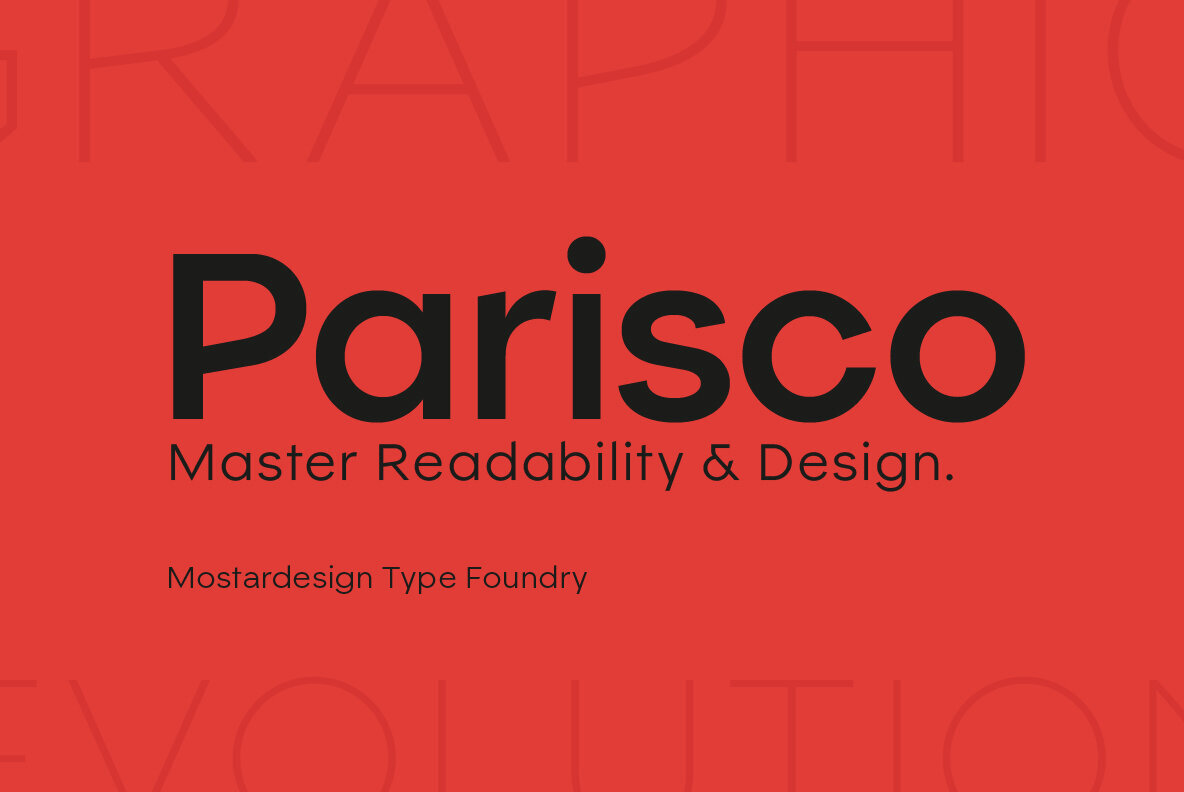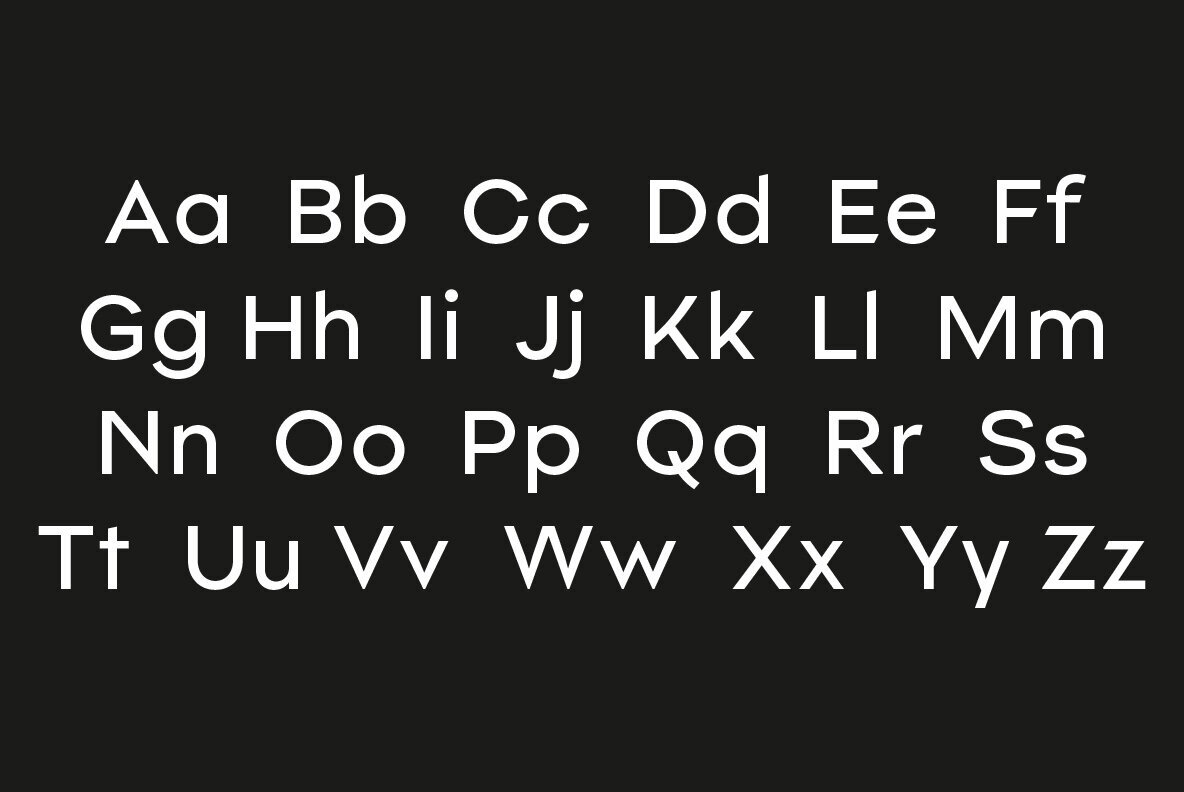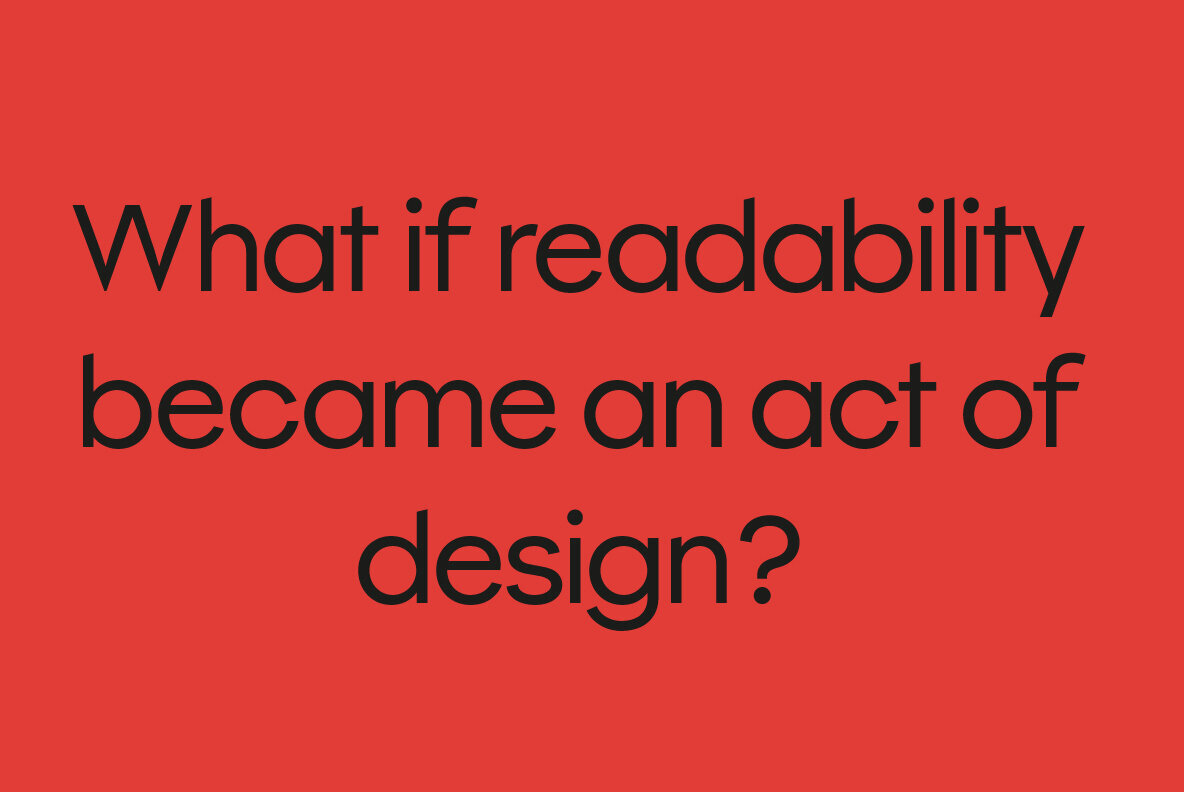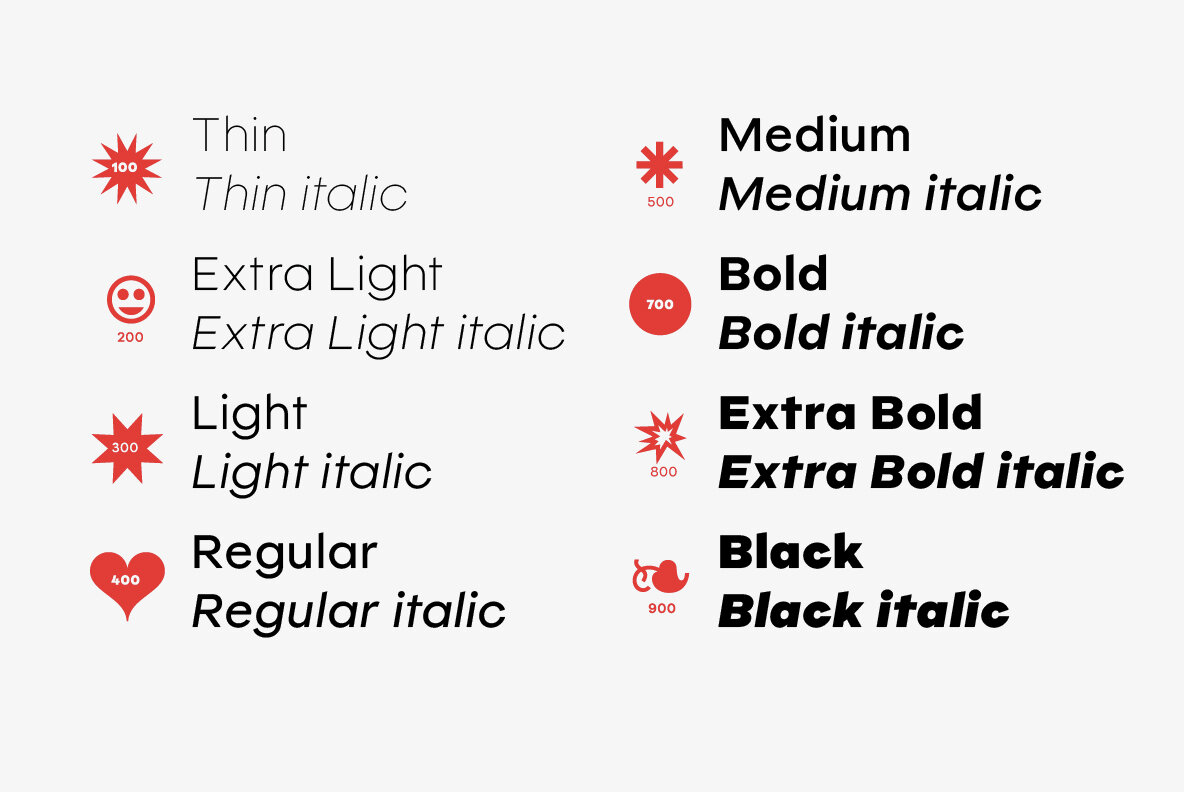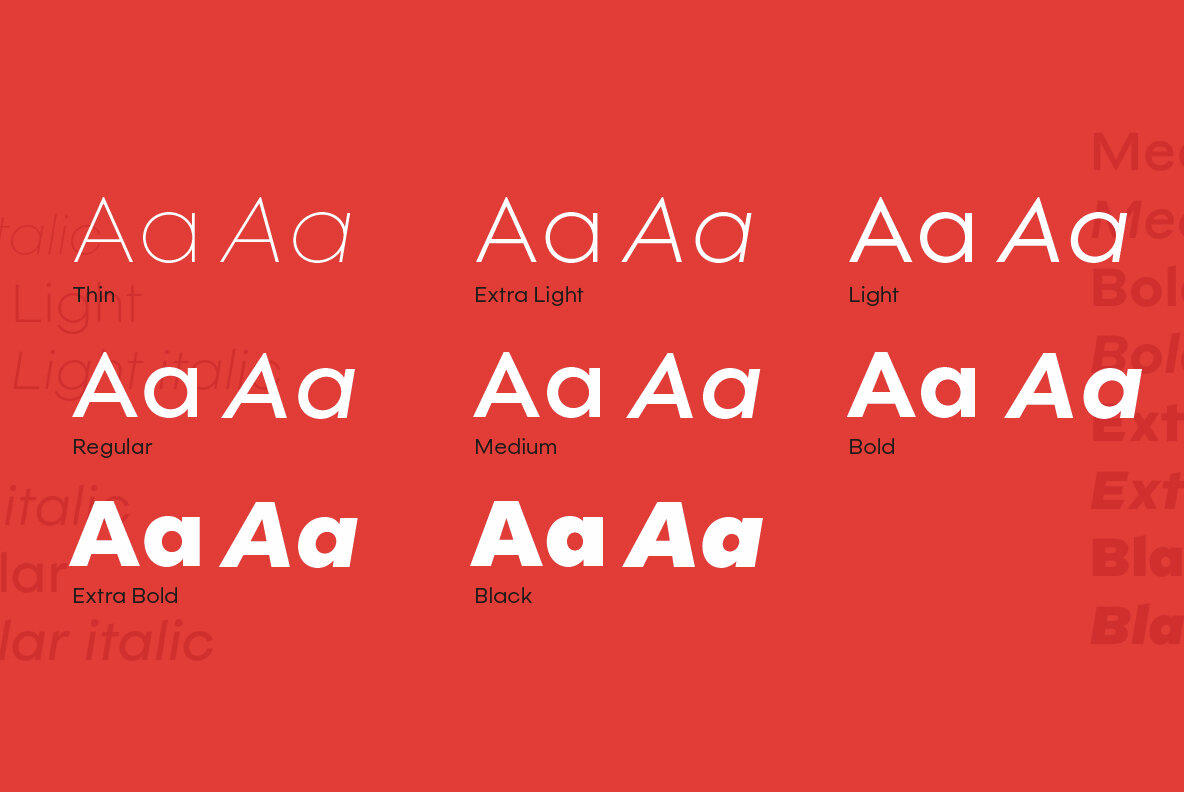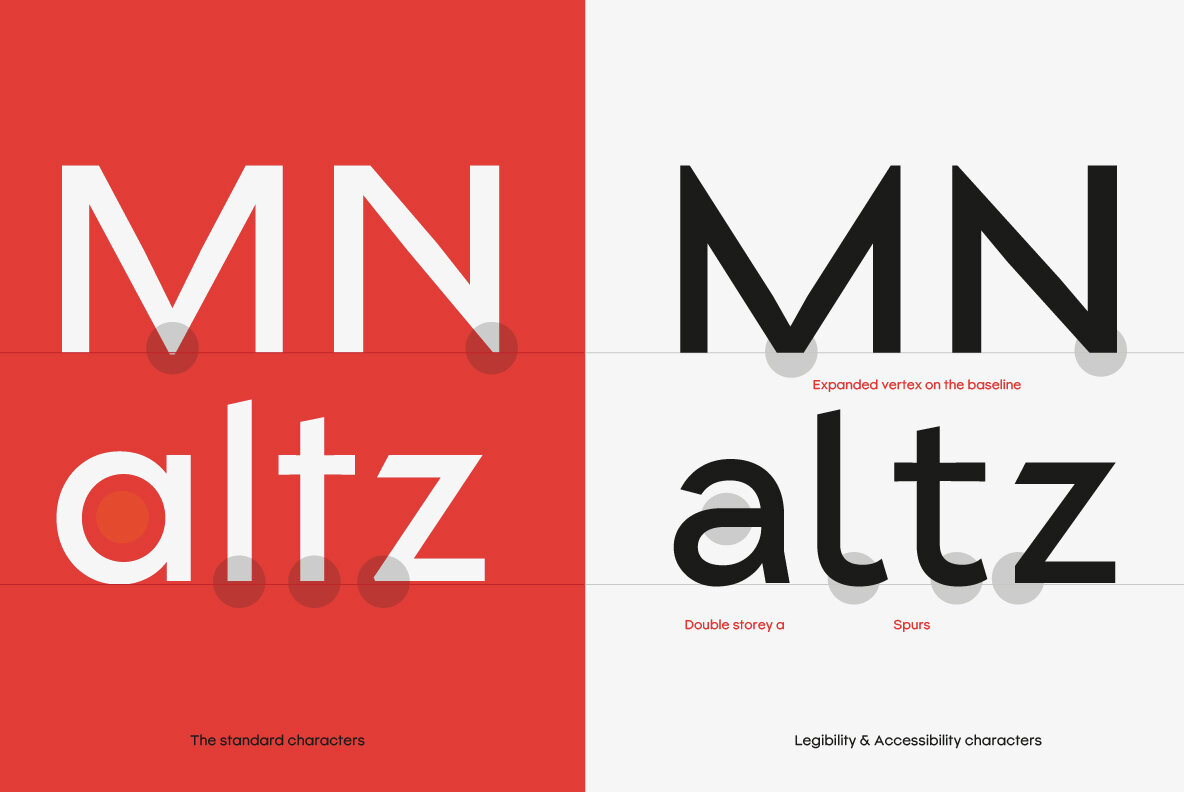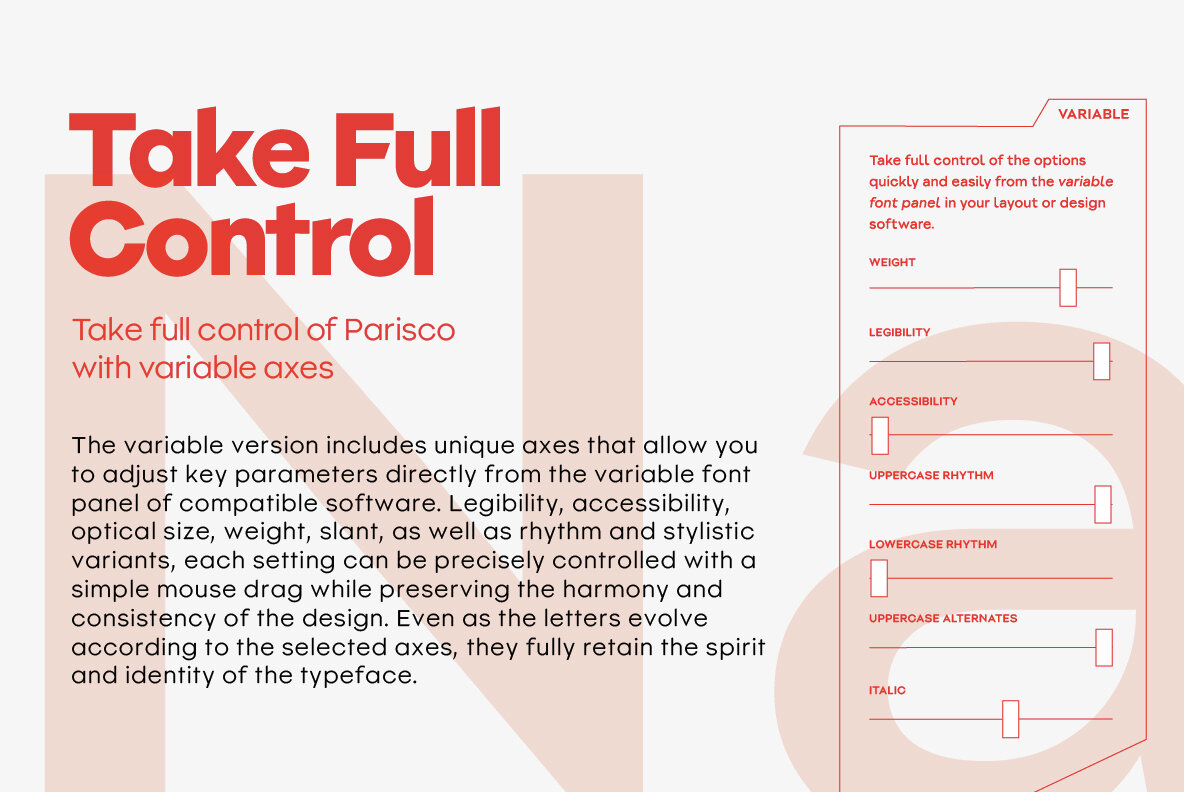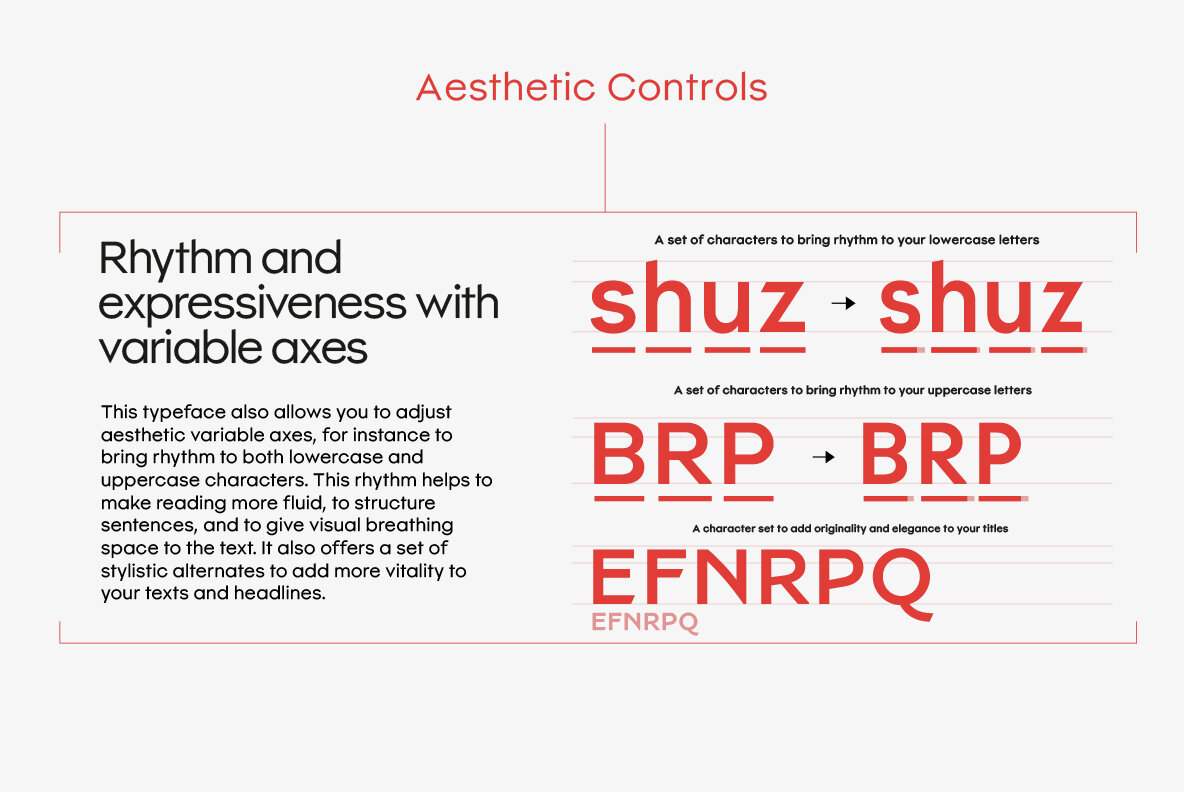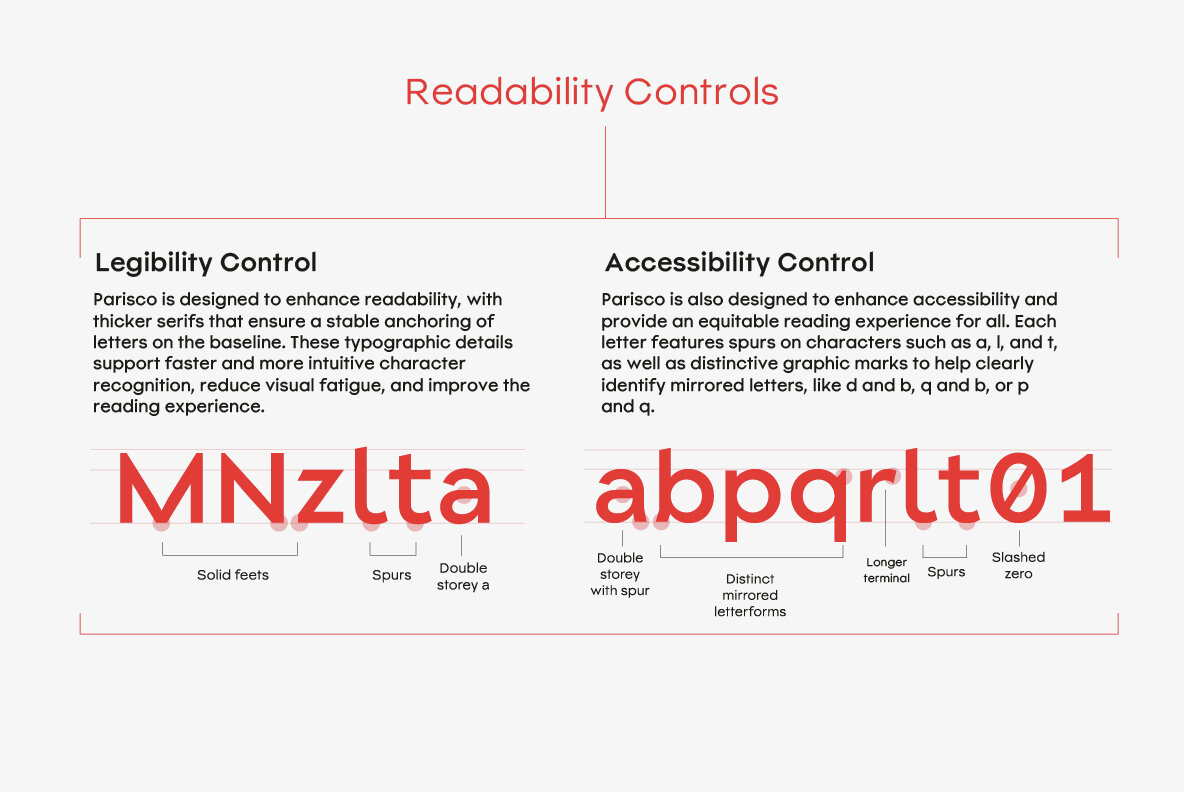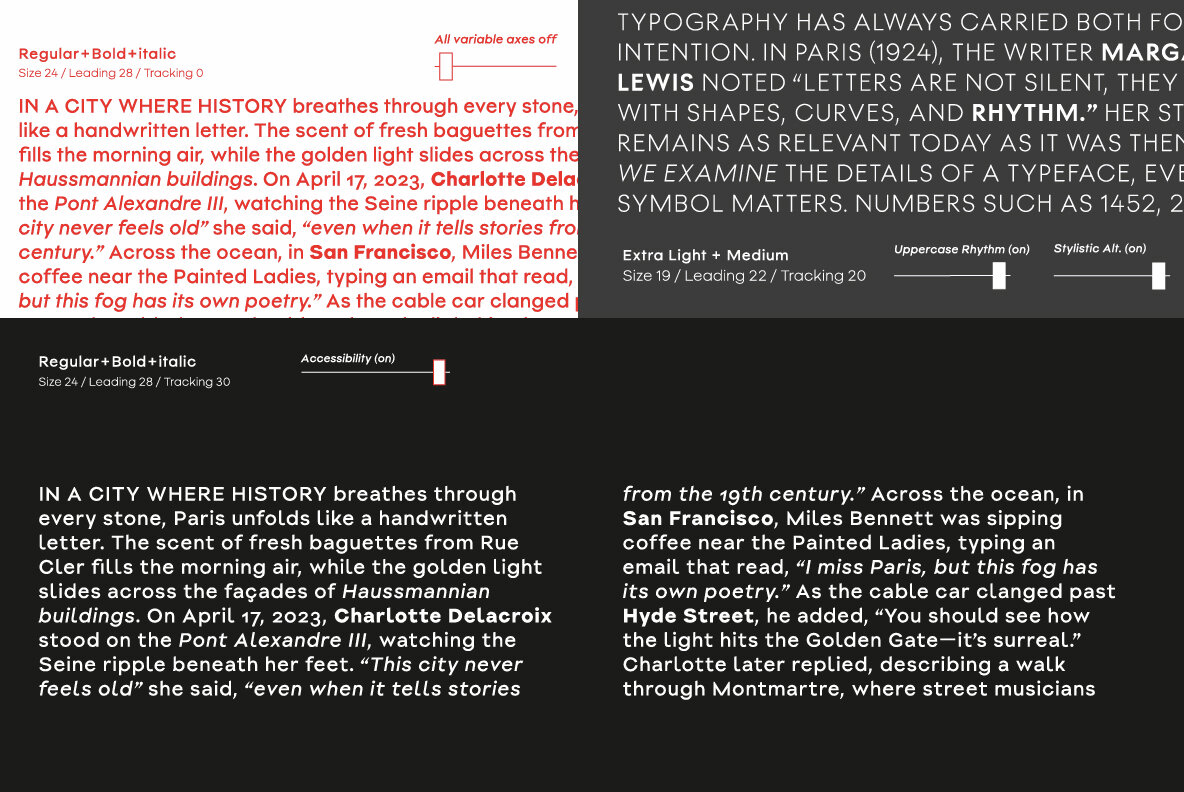
Parisco Font
The Parisco typeface, inspired by its namesake cities, Paris and San Francisco, offers a unique geometric design that marries European tradition with contemporary innovation. This sans-serif family, spanning eight weights from Thin to Black, features matching italics, delivering a seamless blend of structural precision and graceful readability. Underneath its straightforward forms lies a meticulous construction. Humanist details, such as the open curves of the C, the innovative angles of the R, and the sharp cuts of the e and k, create a harmonious blend of aesthetic appeal and functional clarity. Beyond classic design, Parisco redefines readability as a design element. Its functional flexibility is showcased through adjustable features visible via the variable font panel, offering precision, speed, and ease of use. This gives designers the ability to seamlessly adapt the typeface for both extended texts and striking headlines. The typeface’s dedication to versatility is further emphasized by a stylistic set designed to enhance presence without compromising balance.Parisco Typeface: A Transatlantic Design Fusion